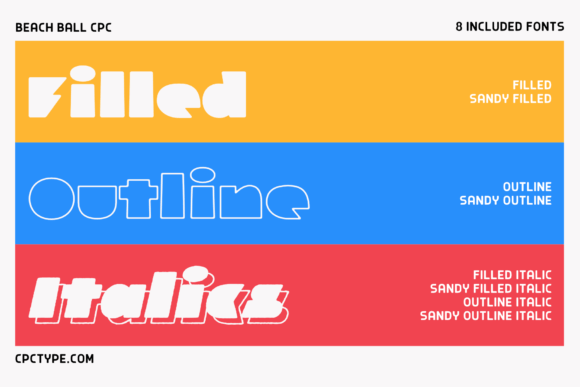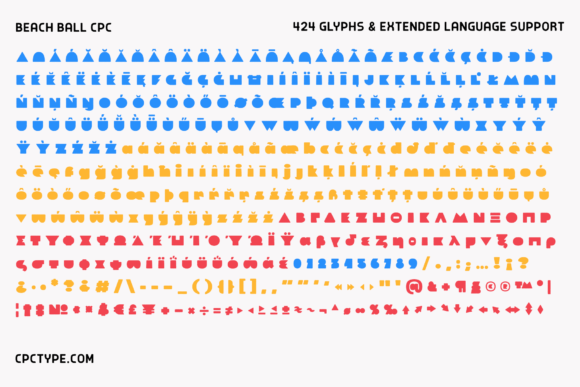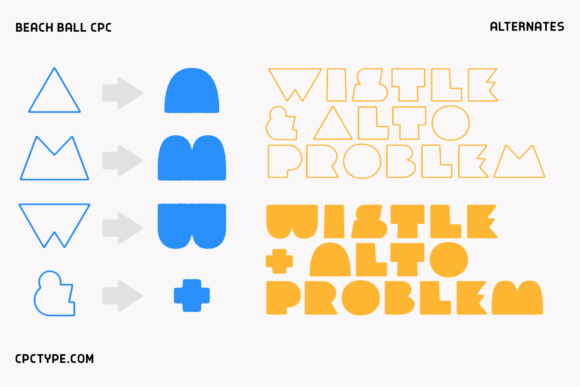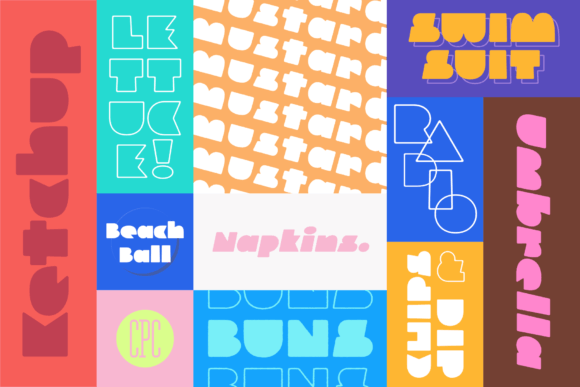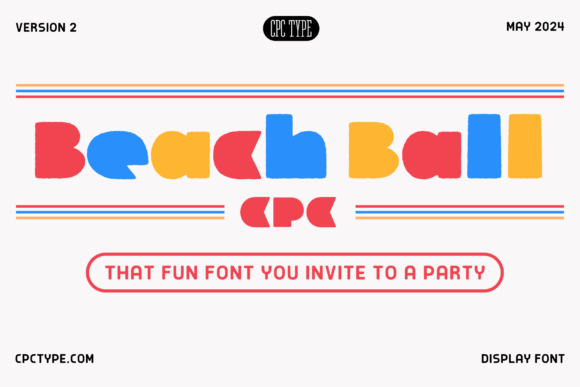
Summer Vibes Ahead: Introducing the Beach Ball CPC Font
Who else remembers the thrill of planning the ultimate summer bash, only to have it all come together with the perfect playlist, colorful decorations, and – of course – the right font to match the mood? That feeling of excitement and anticipation is exactly what the Beach Ball CPC Font is designed to evoke.
This bold and playful display font is the perfect addition to any summer-themed design project. It’s the life of the party, always ready to shine and bring a smile to your audience’s faces. With its versatility and ease of use, the Beach Ball CPC Font is a valuable asset for designers looking to create eye-catching and engaging designs that capture the essence of the season.
Beach Ball CPC Font Key Features
- Unique Characteristic: The font features a distressed, retro aesthetic with a beach ball theme, making it suitable for casual and playful designs
Beach Ball CPC Font Review
I recently had the chance to work with the Beach Ball CPC Font, and I must say it’s a unique and interesting addition to any design project. ✨ The font’s playful and whimsical nature is perfect for capturing a carefree summer vibe. It’s great for creating eye-catching graphics and headings that are sure to grab attention.
The Beach Ball CPC Font is also highly versatile and can be used in a variety of contexts, from children’s party invitations to beach-themed merchandise. ✨ The font’s fun and bubbly personality makes it an excellent choice for designers looking to add some personality to their work.
- ⚠️ Limited legibility: The font’s playful nature can sometimes make it difficult to read, especially in smaller sizes.
- ⚠️ Limited font weight options: The font only comes in a few weights, which can limit its use in more formal or professional designs.
- ⚠️ Limited language support: The font may not support all languages, which can be a limitation for designers working on multilingual projects.
Overall, I think the Beach Ball CPC Font is a great addition to any designer’s toolkit, but it’s essential to be aware of its limitations. With some careful planning and consideration, this font can add a fun and playful touch to any design project.
Some tips for getting the most out of the Beach Ball CPC Font include:
1. Use it for playful and fun designs.
2. Combine it with bright and bold colors.
3. Use it for titles and headings.
1. Designing beach-themed party invitations.
2. Creating playful social media graphics.
3. Developing fun and engaging advertisements.